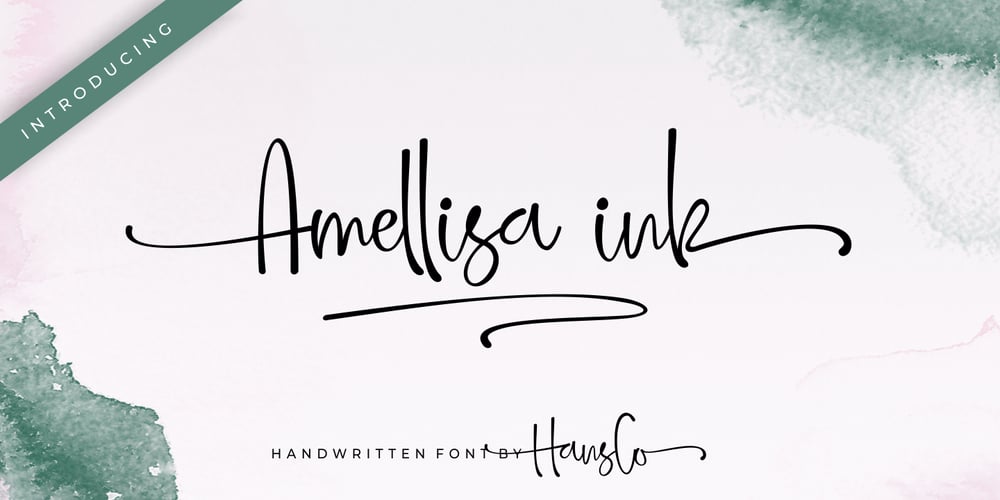
Amellisa Ink Font Family was designed by Burhan Afif and published by HansCo. Amellisa Ink contains 2 styles and family package options. Amellisa Ink is a beautiful, elegant and natural handwritten font. This font is perfect for creating logos, watermarks, branding, wedding invitations, quotes, or anything else you wish to design. This font is PUA encoded which means you can access all of the glyphs and swashes with ease!. Highly recommended to use it in OpenType capable software – there are plenty out there nowadays as technology catches up with design. The OpenType features can be accessed by using programs such as Adobe Illustrator, Adobe InDesign, Adobe Photoshop Corel Draw X version, Afinity and more. Tutorial how to Install & use Alternate / Special Character : https://hanscostudio.com/tutorial/Enjoy!